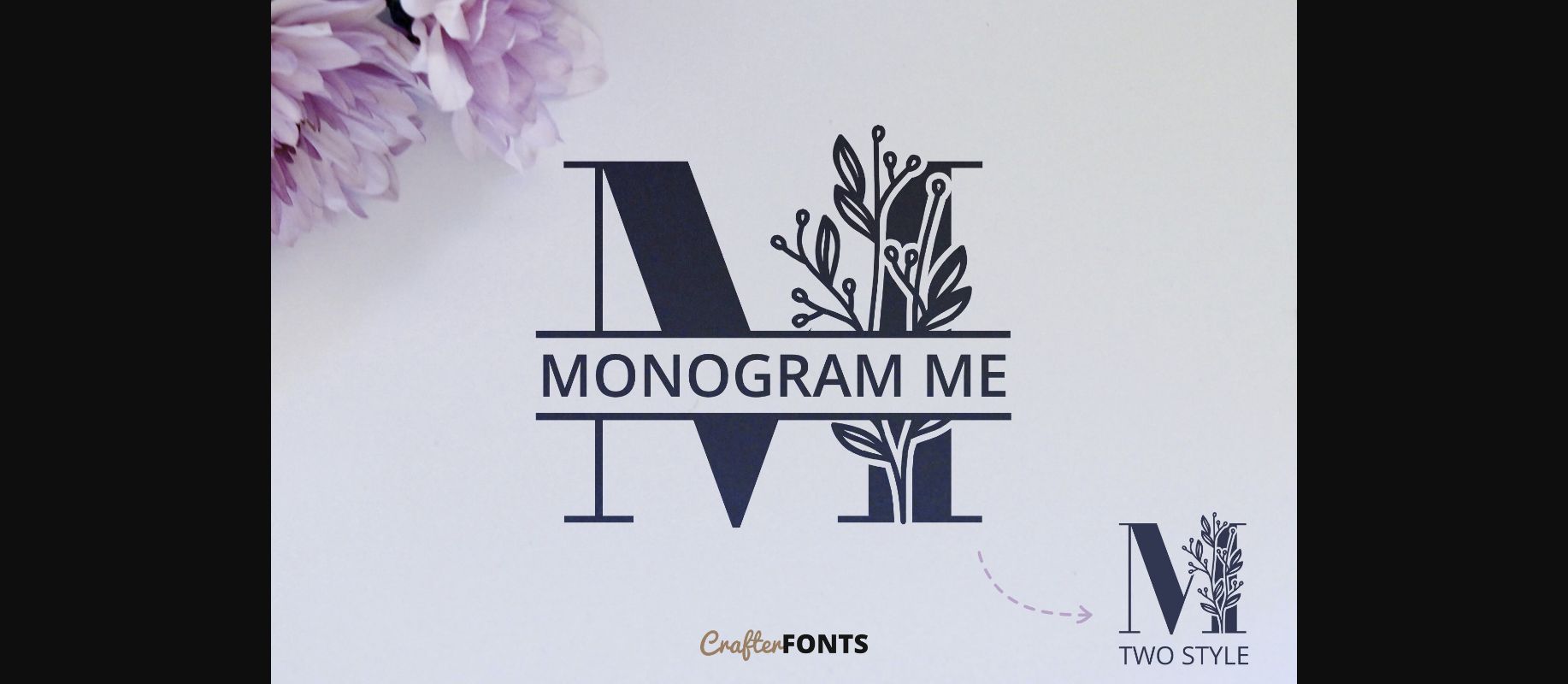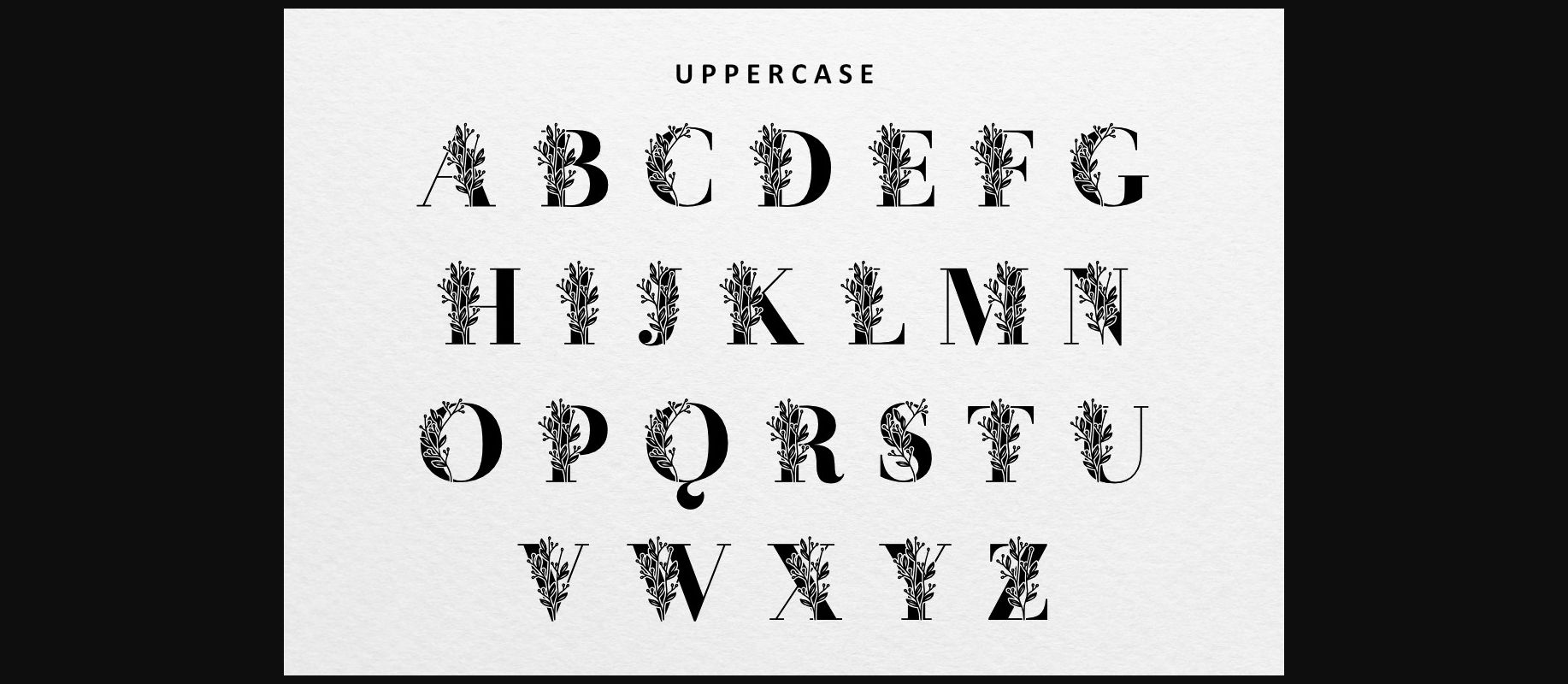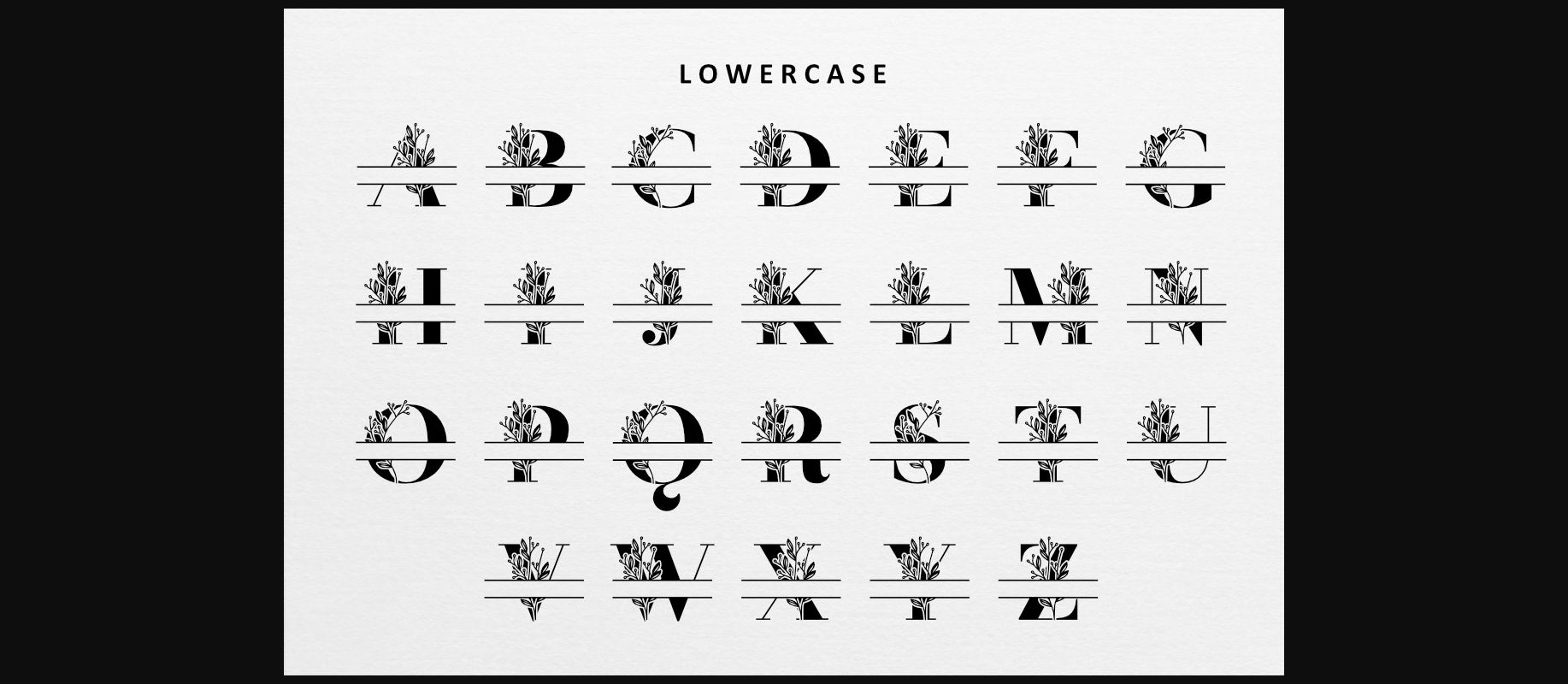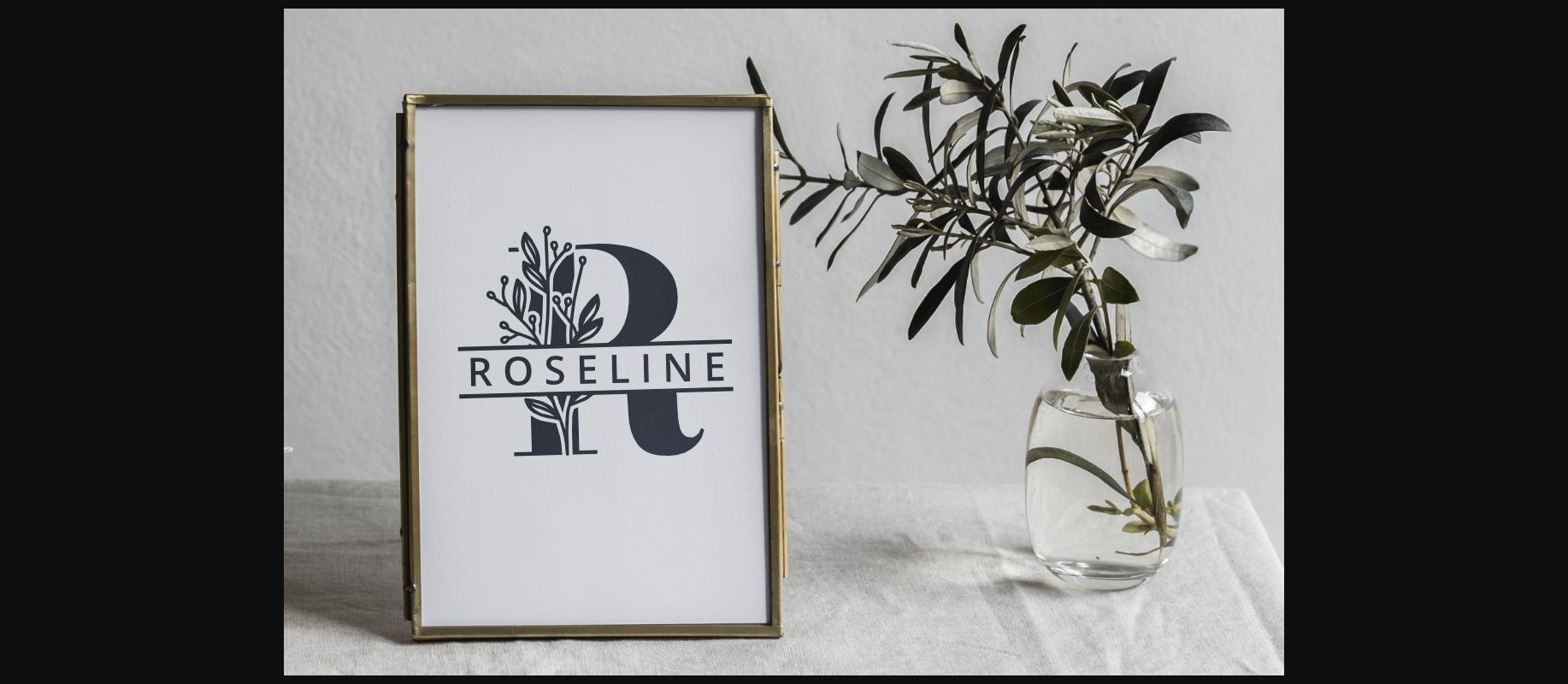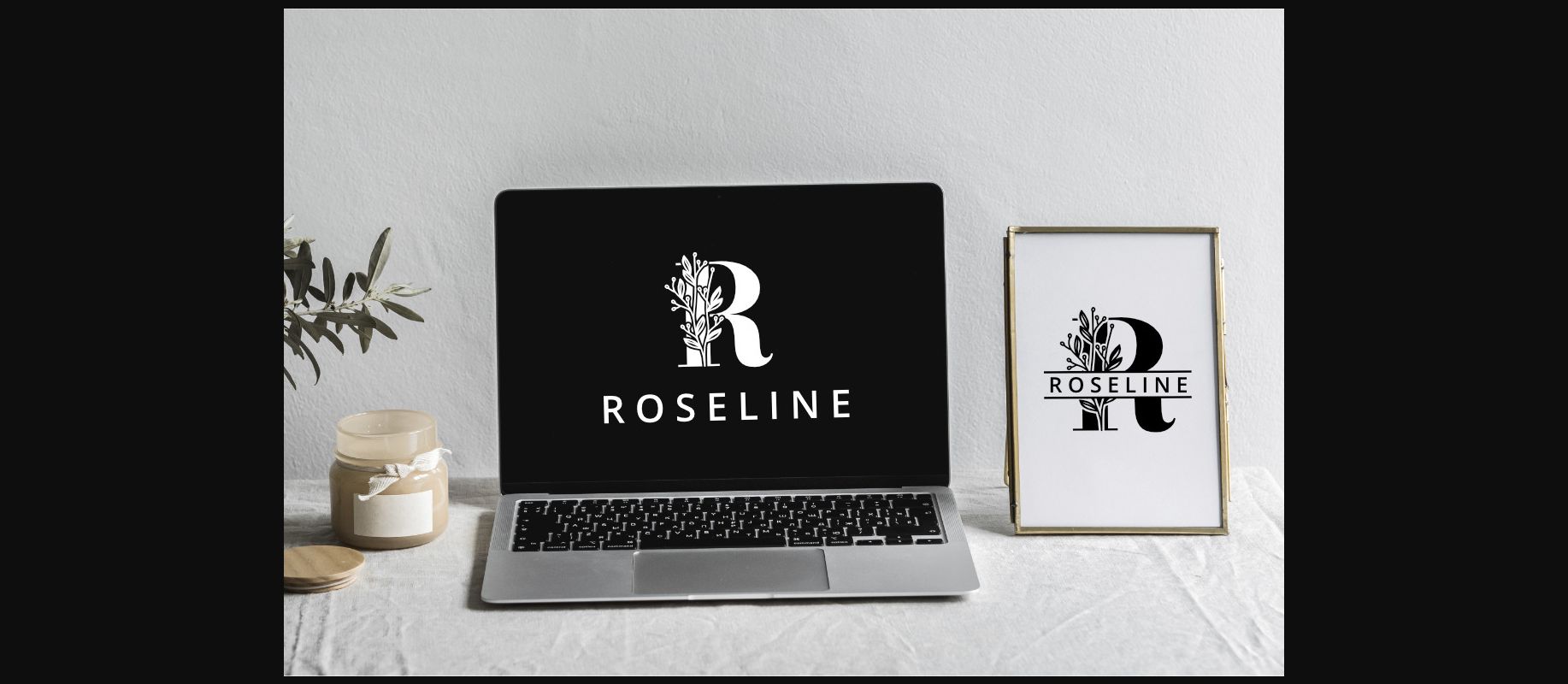
Monogram is a stylish and distinct decorative font. Add this dainty and lovely looking font to each of your love letters, wedding invitations or favorite design ideas, and you will be astounded by the outcome.